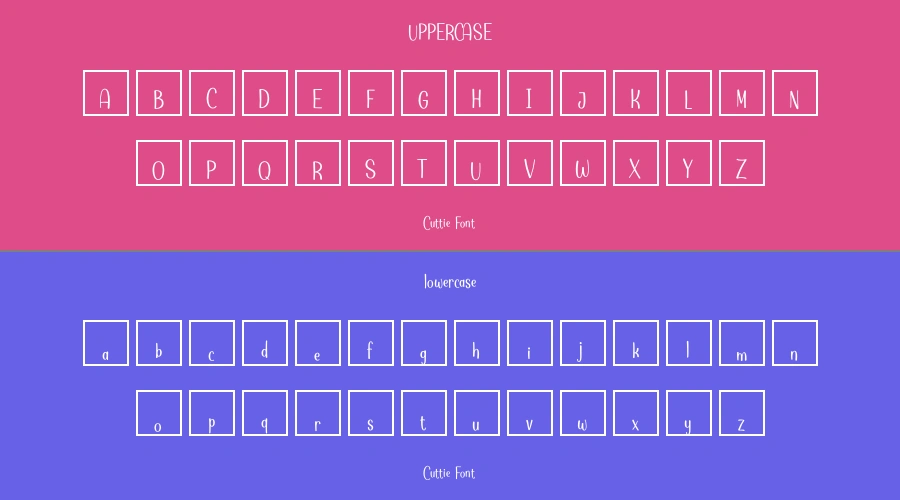
About Cuttie Font
Designed with precision, Cuttie Font merges consistent rhythm with recall value in every character. This versatility makes it particularly effective for product naming, where functionality and scholarly value directly impact communication quality. Each letterform demonstrates meticulous craftsmanship.
Technical excellence shines through elements like flourished entries and word-end alternates, enhancing typographic versatility. In logos settings, Cuttie Font proves its worth through superior personality transfer. The thoughtful execution of terminal angle and modern touches ensures professional results.